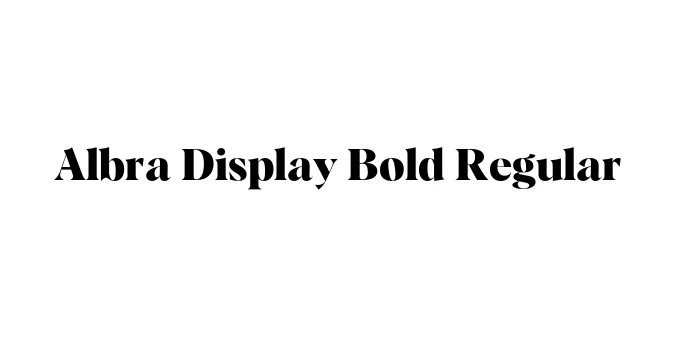
Albra Display Bold Regular
Designed by Tom Anders Watkins & Ellen Luff
Albra Display is a sophisticated serif font family designed by BumBumType. It represents a contemporary take on classic high-contrast serifs, blending elegance with a touch of eccentricity. The Bold Regular weight specifically focuses on striking visual impact, featuring sharp terminals and graceful curves that command attention in large-scale applications.
The history of Albra traces back to the desire to create a versatile toolkit for editorial and branding purposes. By balancing traditional typographic proportions with modern aesthetic sensibilities, the designers achieved a timeless look. This typeface has become a favorite for luxury branding and high-fashion magazines, offering a distinct personality that remains legible even with its dramatic weight variations.
Albra Display Bold Regular Best Uses
Perfect for headlines and pull quotes in premium magazines.
Ideal for high-end fashion, jewelry, and luxury brand identities.
Highly effective for large-scale posters and high-impact digital banners.
Great for creating eye-catching graphic posts on visual platforms like Instagram.